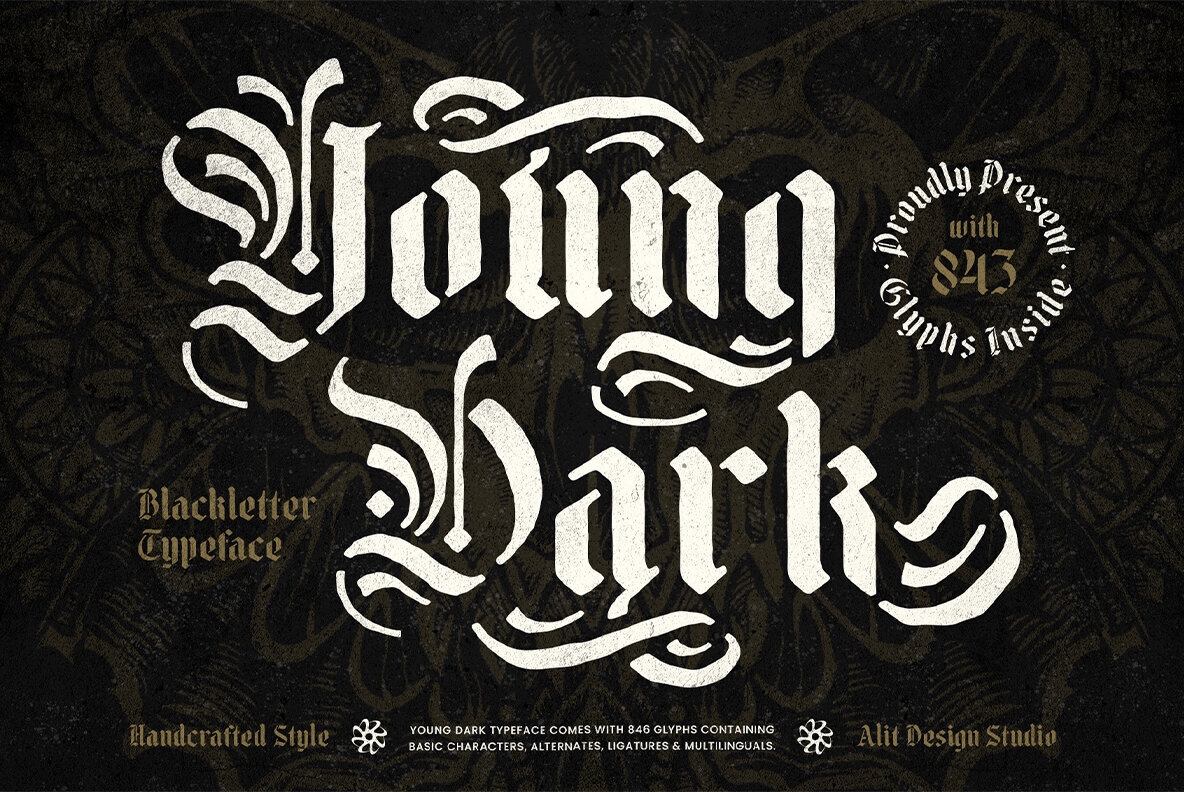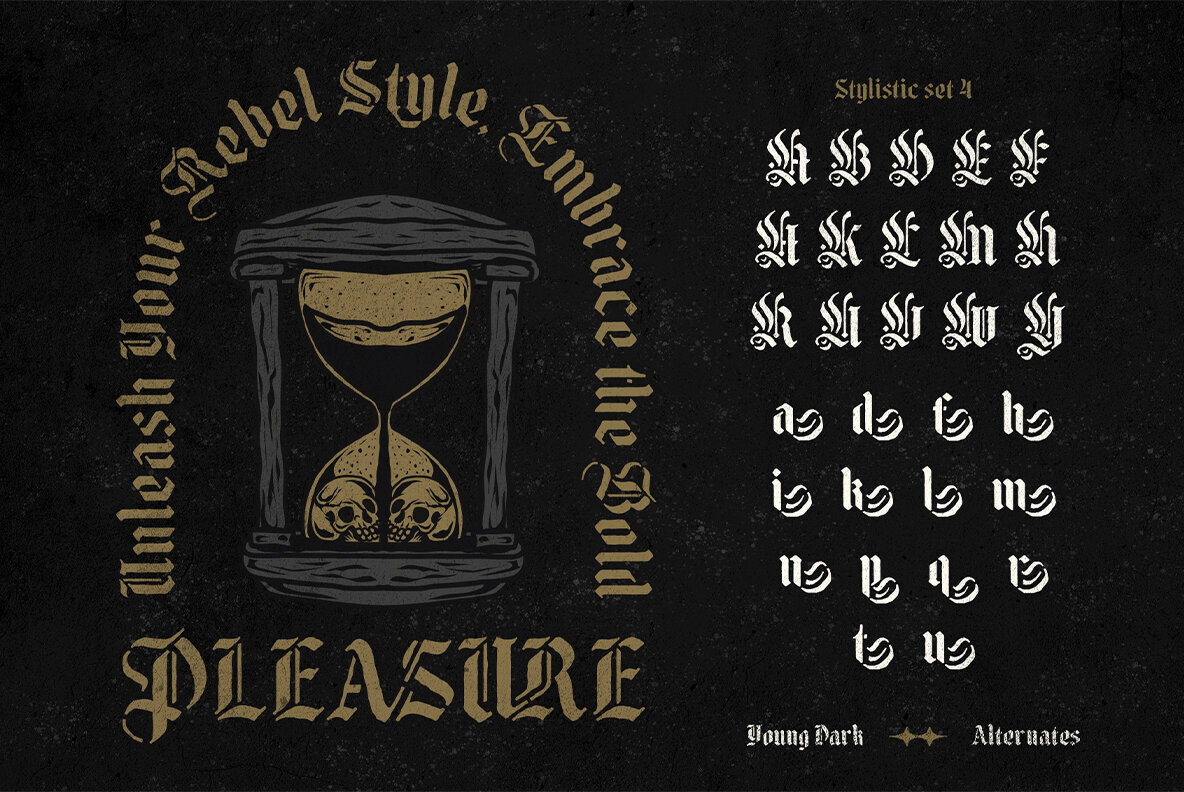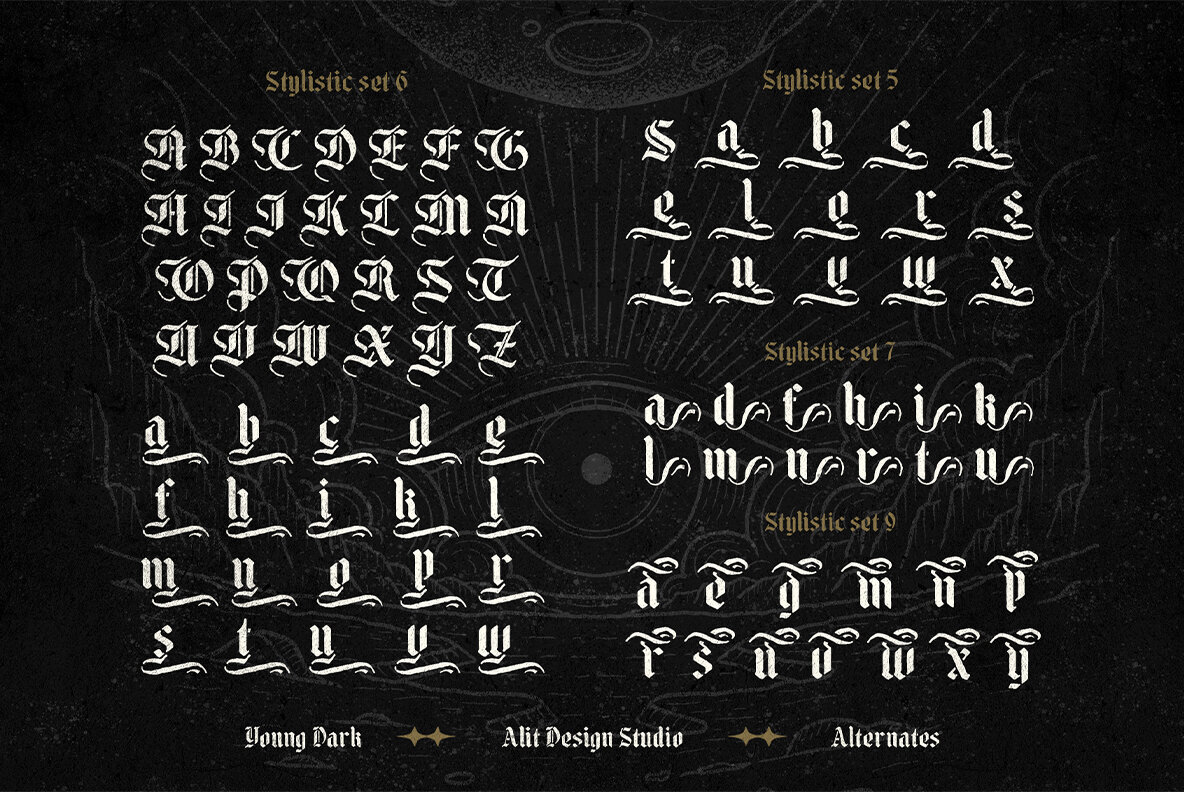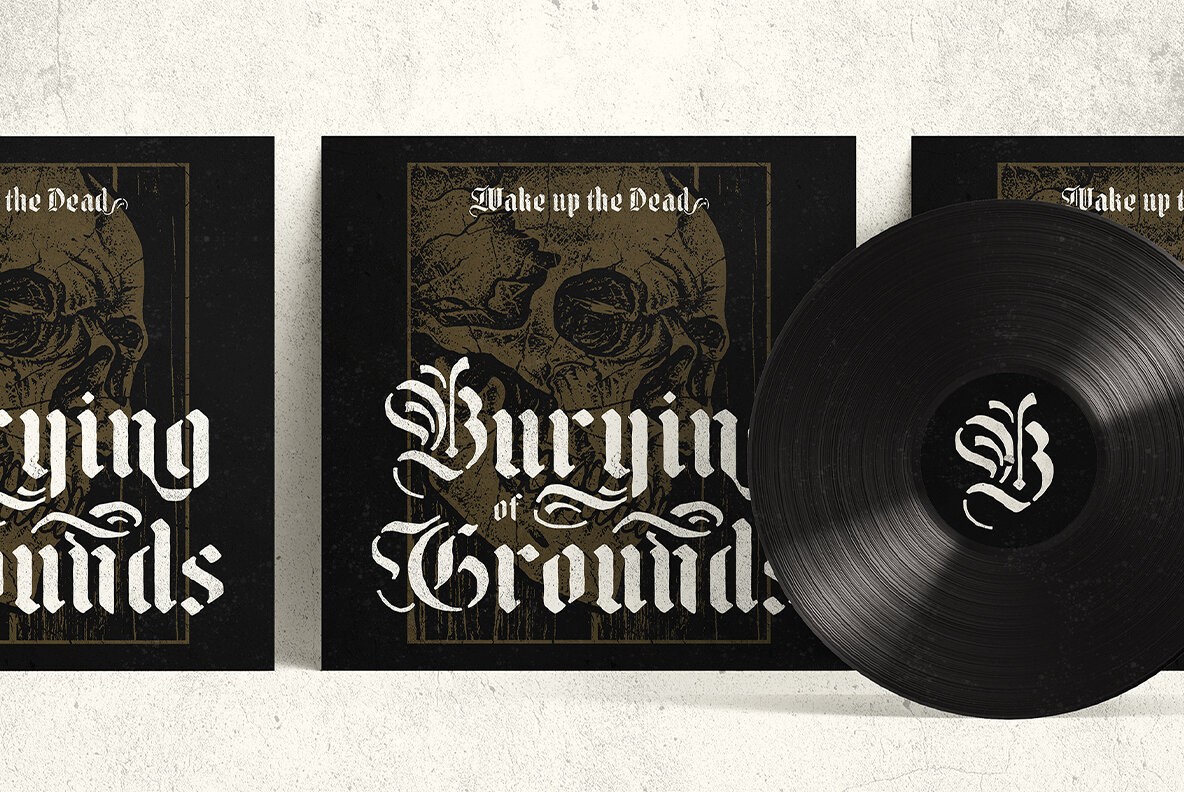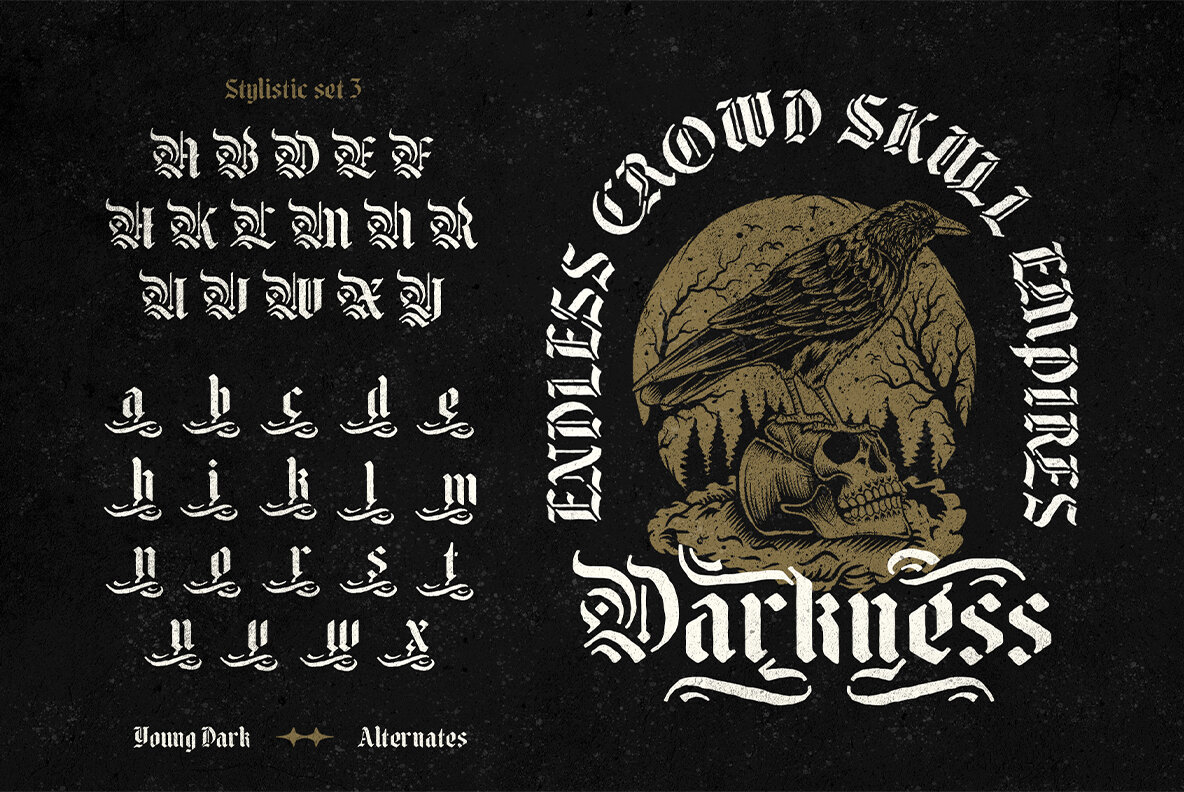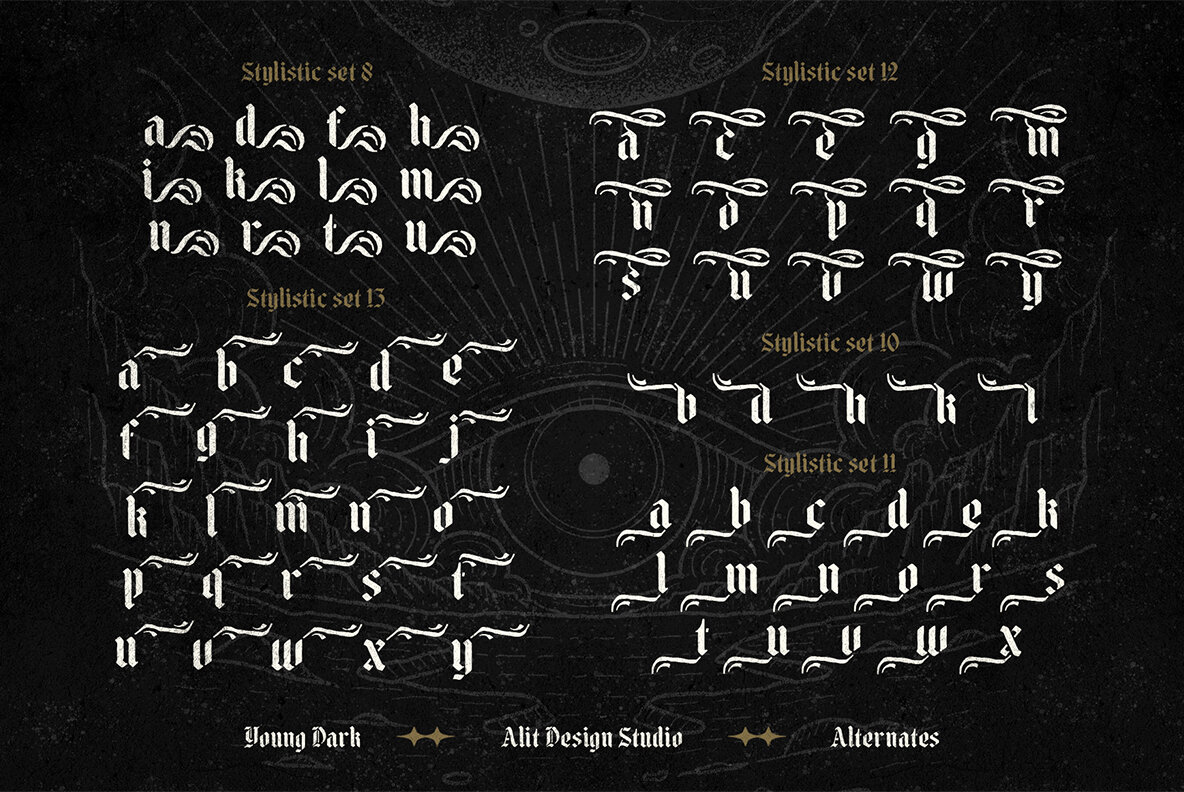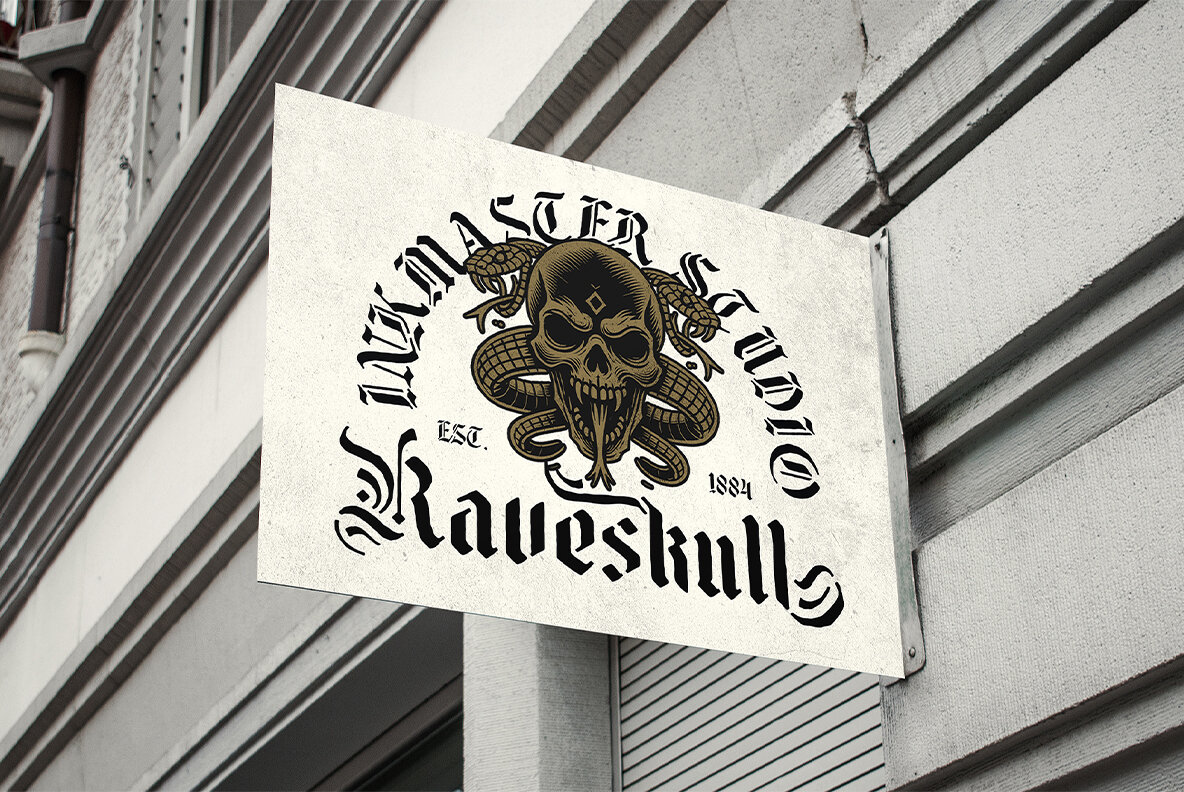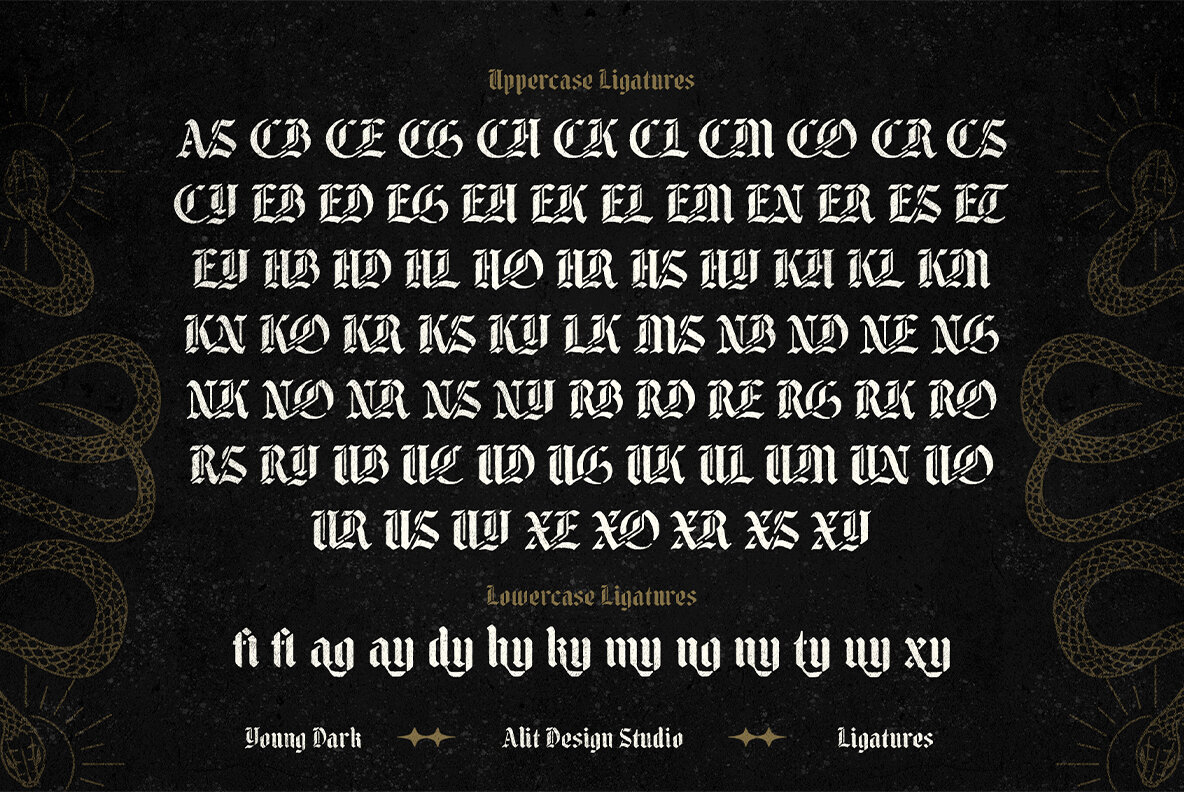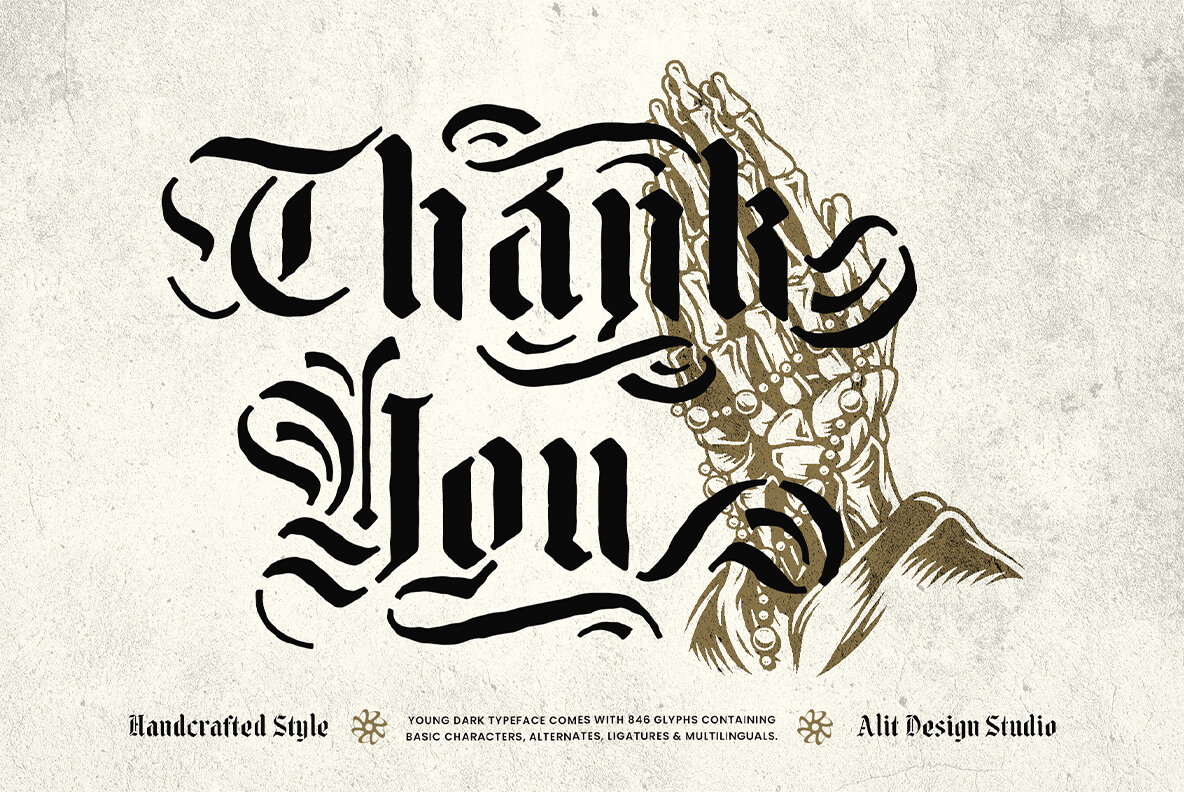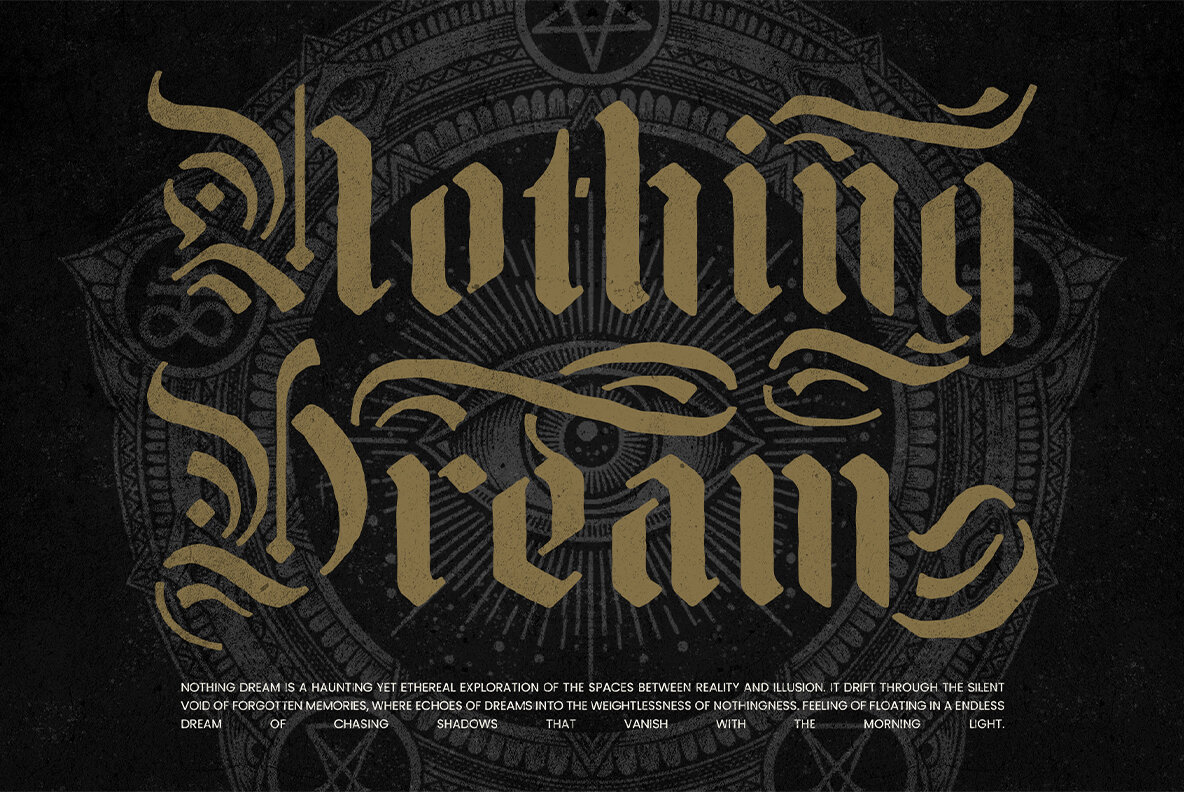
Young Dark Font
Young Dark Regular
Young Dark Typeface embodies the fusion of gothic artistry with a modern edge, delivering a bold blackletter stencil font that captivates. It is meant for those who dare to make a statement across various creative works, from branding to apparel, posters, and music covers. The design expertly marries historical elegance with a rebellious spirit, creating a unique, high-impact visual appeal. This typeface uniquely combines blackletter and stencil styles, merging medieval calligraphy with a rugged stencil cut-out effect. Its striking look is perfect for projects needing a strong, gothic aesthetic. Young Dark Typeface is your go-to for designs that combine vintage gothic elegance with modern urban rebellion. Embrace the uniqueness of this font and make a lasting impact. Get Young Dark Typeface today and craft your next masterpiece!Young Dark Typeface: Bold Blackletter Stencil Font